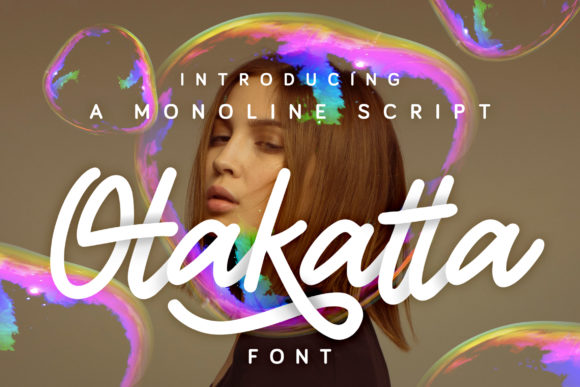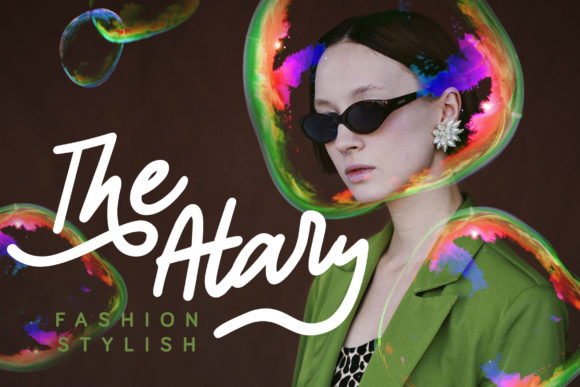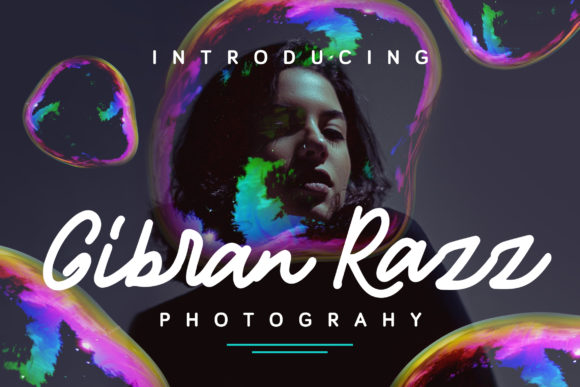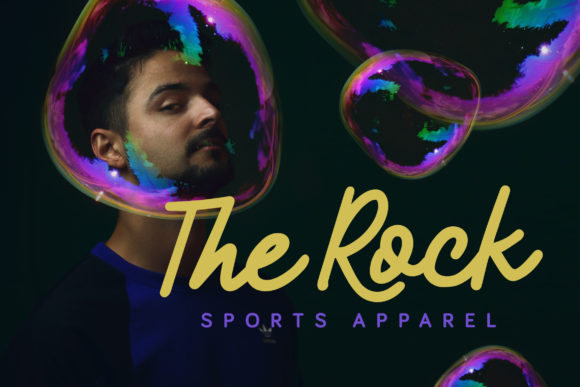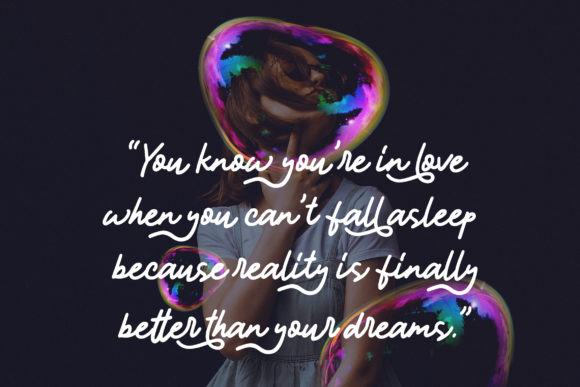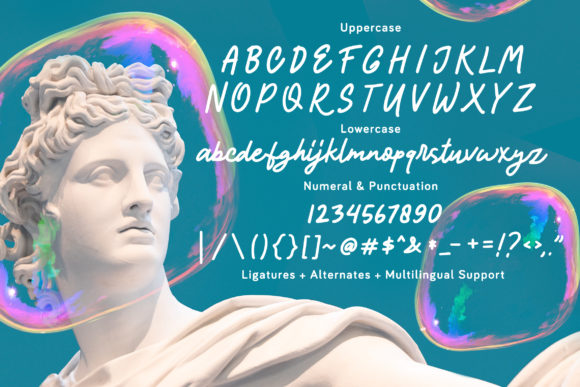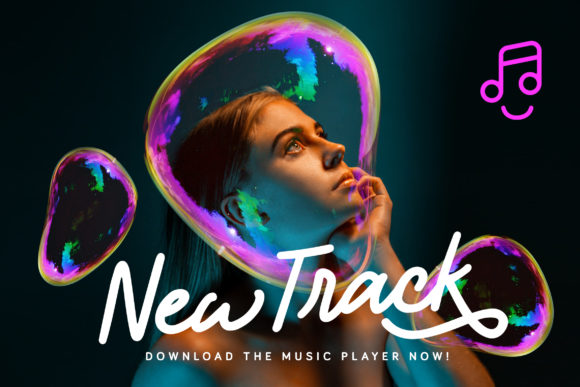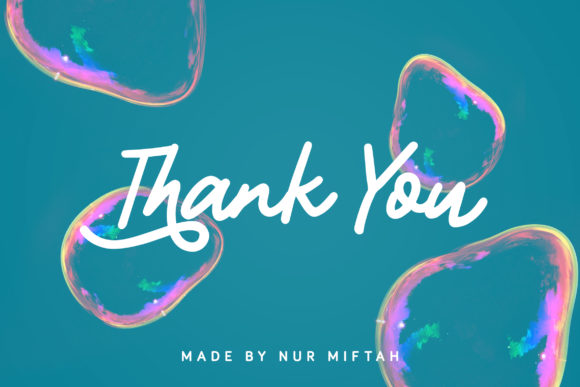
HomeScript FontsOtakatta Font Script Fonts Otakatta Font FacebookXPinterestWhatsApp Otakatta Font Poster 2 Otakatta Font Poster 3 Otakatta Font Poster 4 Otakatta Font Poster 5 Otakatta Font Poster 6 Otakatta Font Poster 7 Otakatta Font Poster 8 About Otakatta Font Otakatta is a playful and fun script featuring gorgeous swashes. Fall in love with its dynamic charm! DOWNLOAD ON CREATIVE FABRICAThis font is sold and delivered by Creative Fabrica. Font Canyon may earn a commission if you buy through this link. People also explored Senorytta Font Henrietta Martins Font Last Kids Font Adinatta Font Borillaz Script Font Fadilla Script Font Ayuni Font Michelle Font Bakery Shop Font 327 0 TagsOtakatta Font Previous articleDonittan Story FontNext articleAdore Voeu Font LEAVE A REPLY Cancel reply Comment: Please enter your comment! Name:* Please enter your name here Email:* You have entered an incorrect email address! Please enter your email address here Website: Save my name, email, and website in this browser for the next time I comment. Personal Use Free Talking on Personal Use Free Read more about this font Braindly Personal Use Free Read more about this font Baveuse Personal Use Free Read more about this font Super Discount Personal Use Free Read more about this font BLOG How to Cut Any Font on Cricut: Convert a Font to SVG (Free) Turn any font into a clean SVG so it cuts crisp on Cricut - a quick 3-step workflow using a free font-to-SVG tool. Free Fonts Risk: Why Free Fonts Can Be Dangerous for Designers Free vs Paid Fonts: Why Investing in Premium Fonts Is Worth It The 10 Best Handwriting Fonts to Add Personality to Your Designs